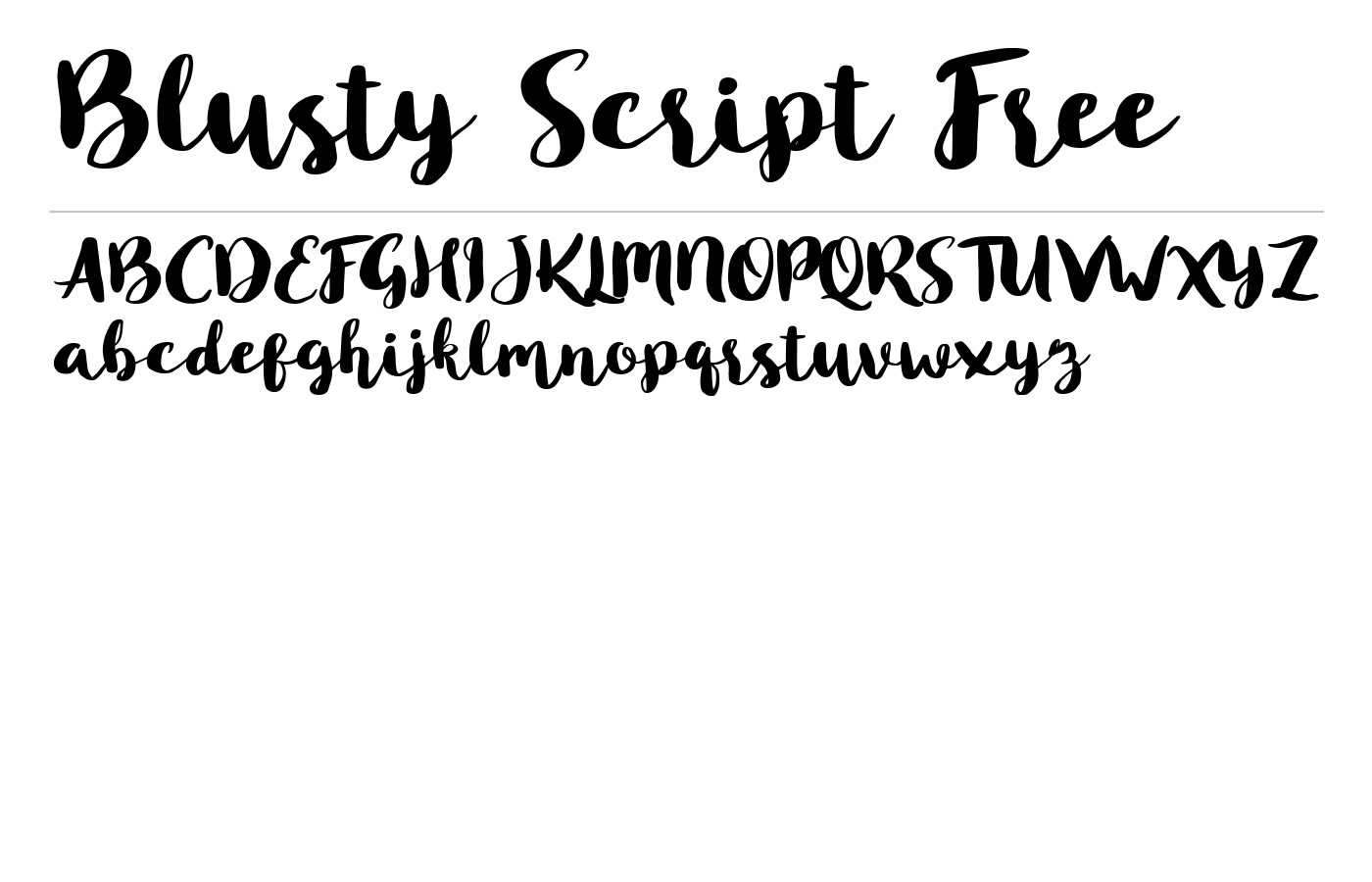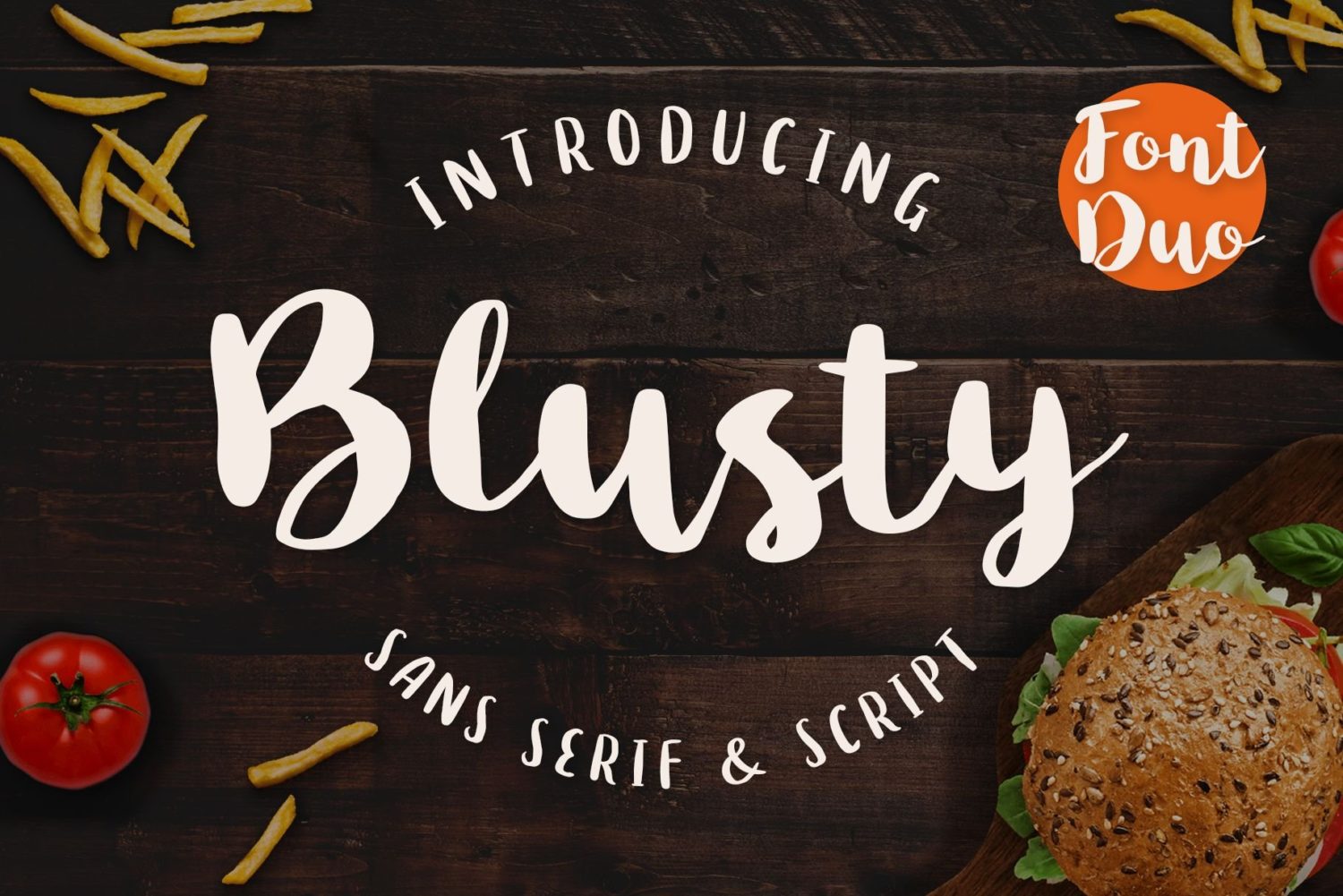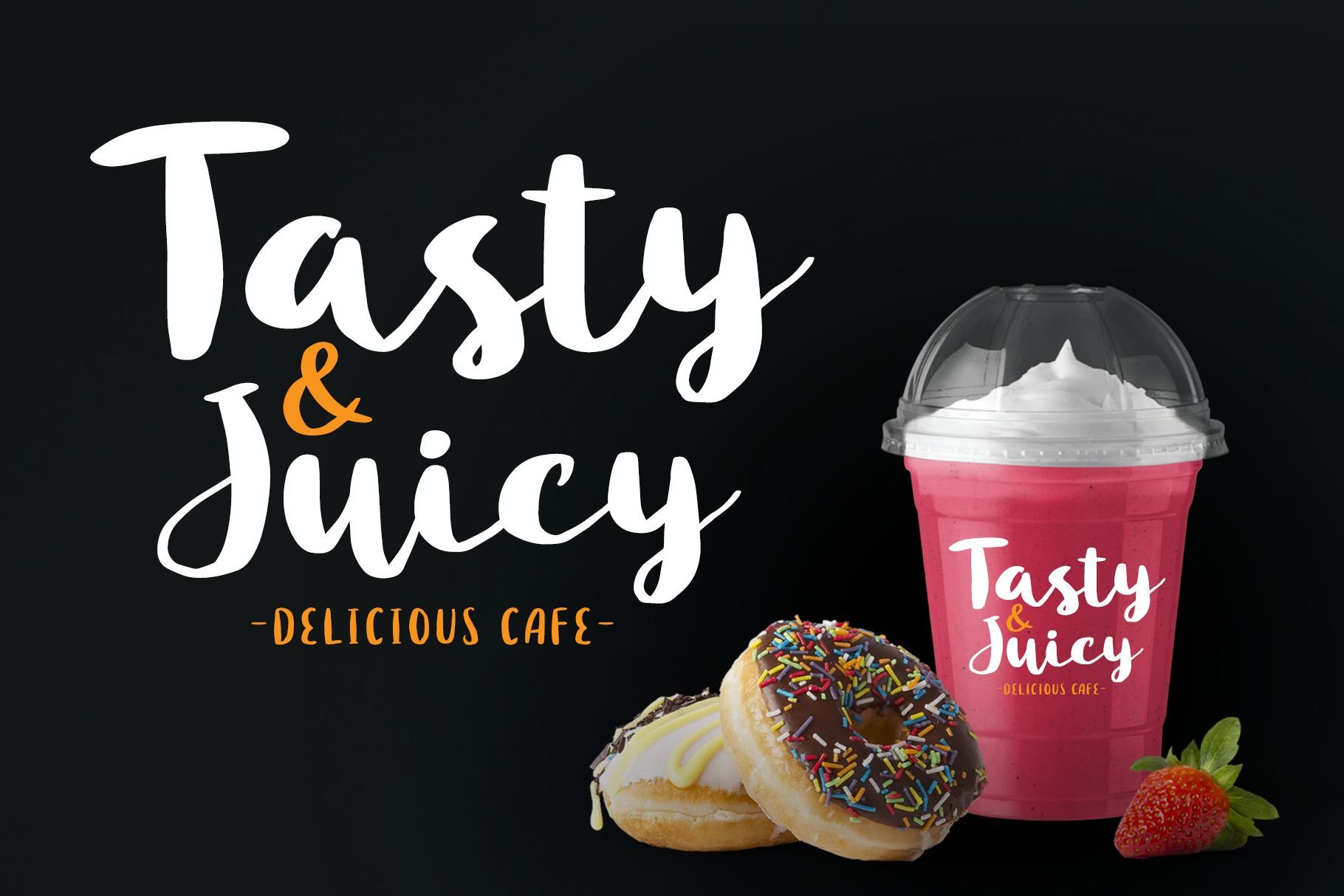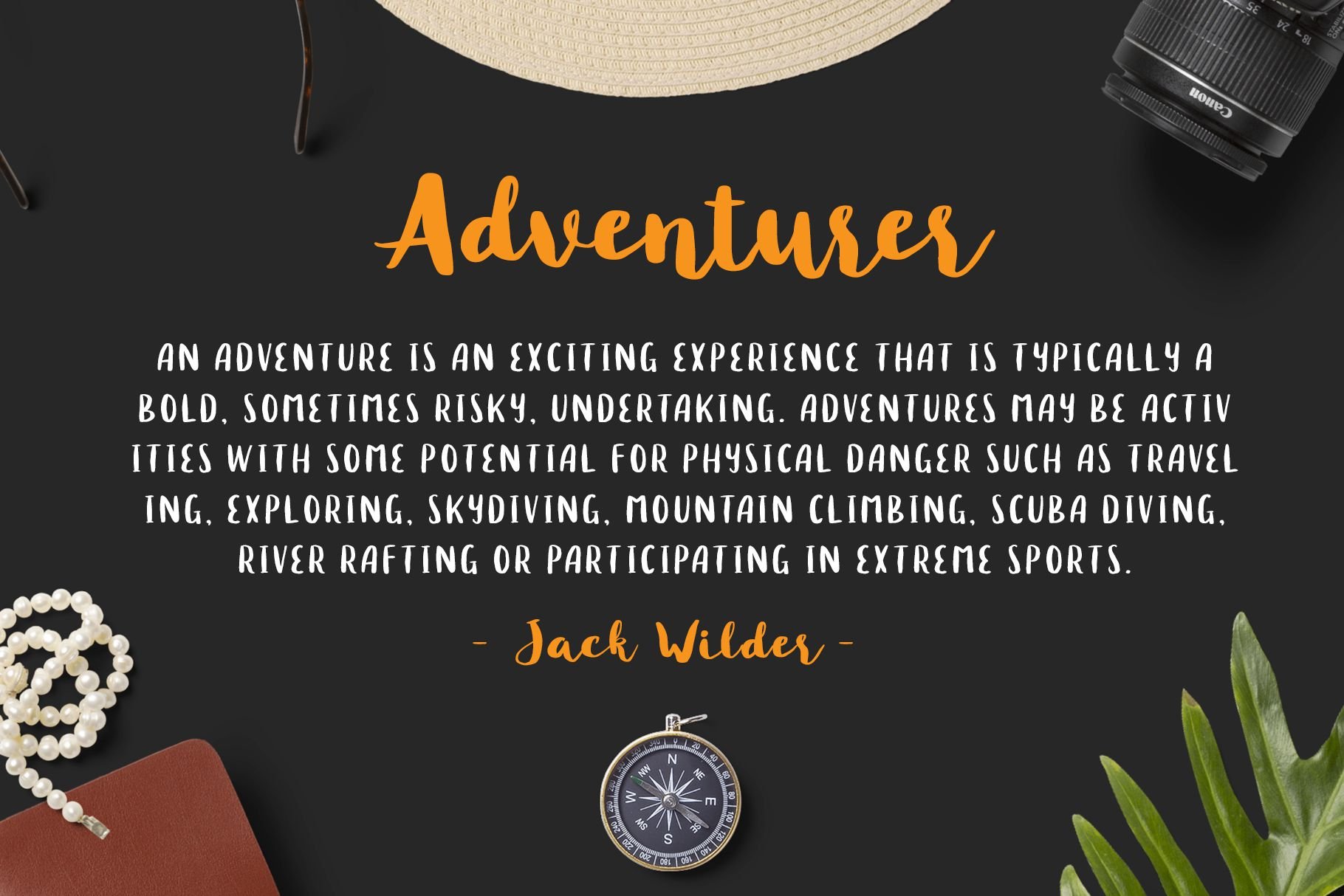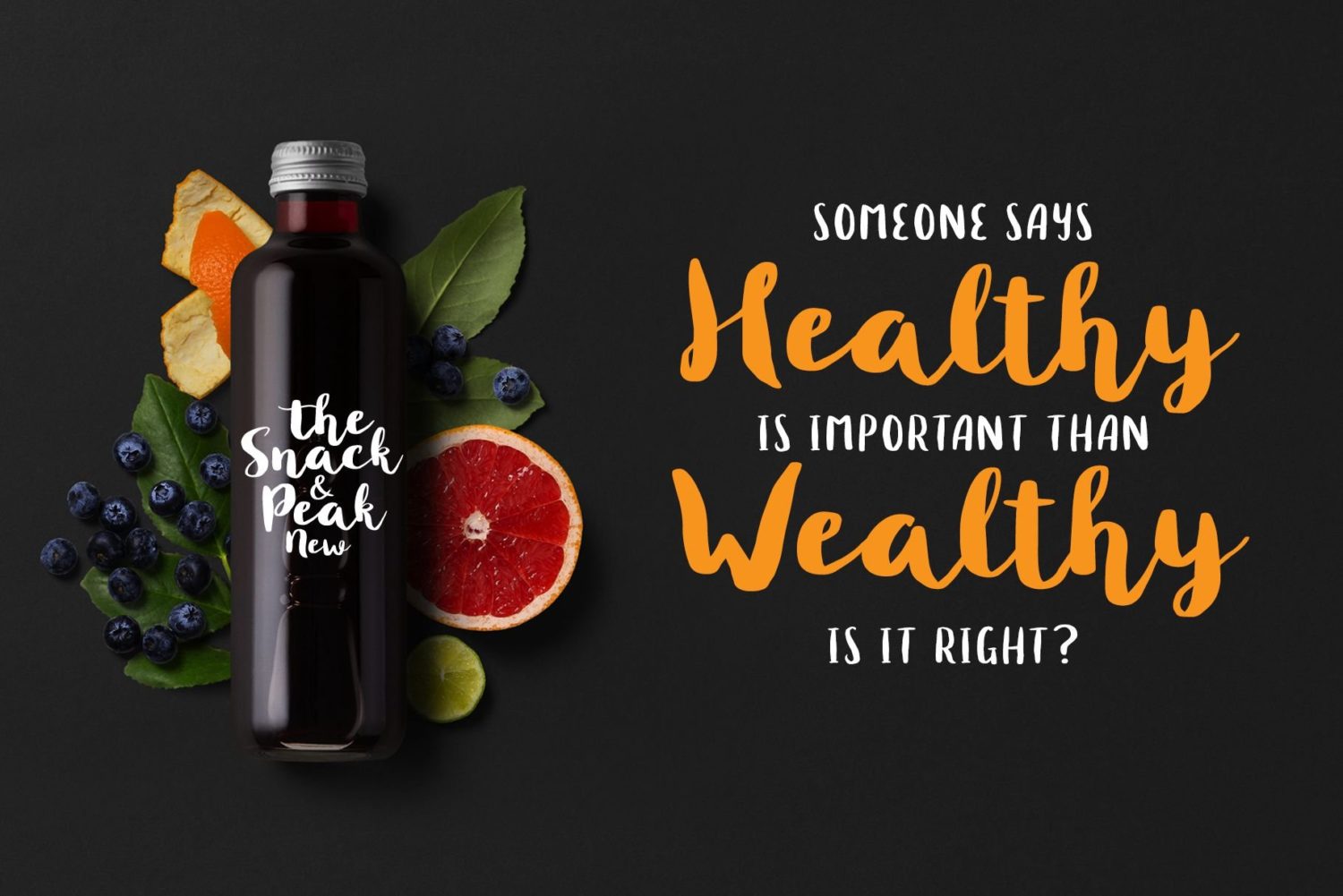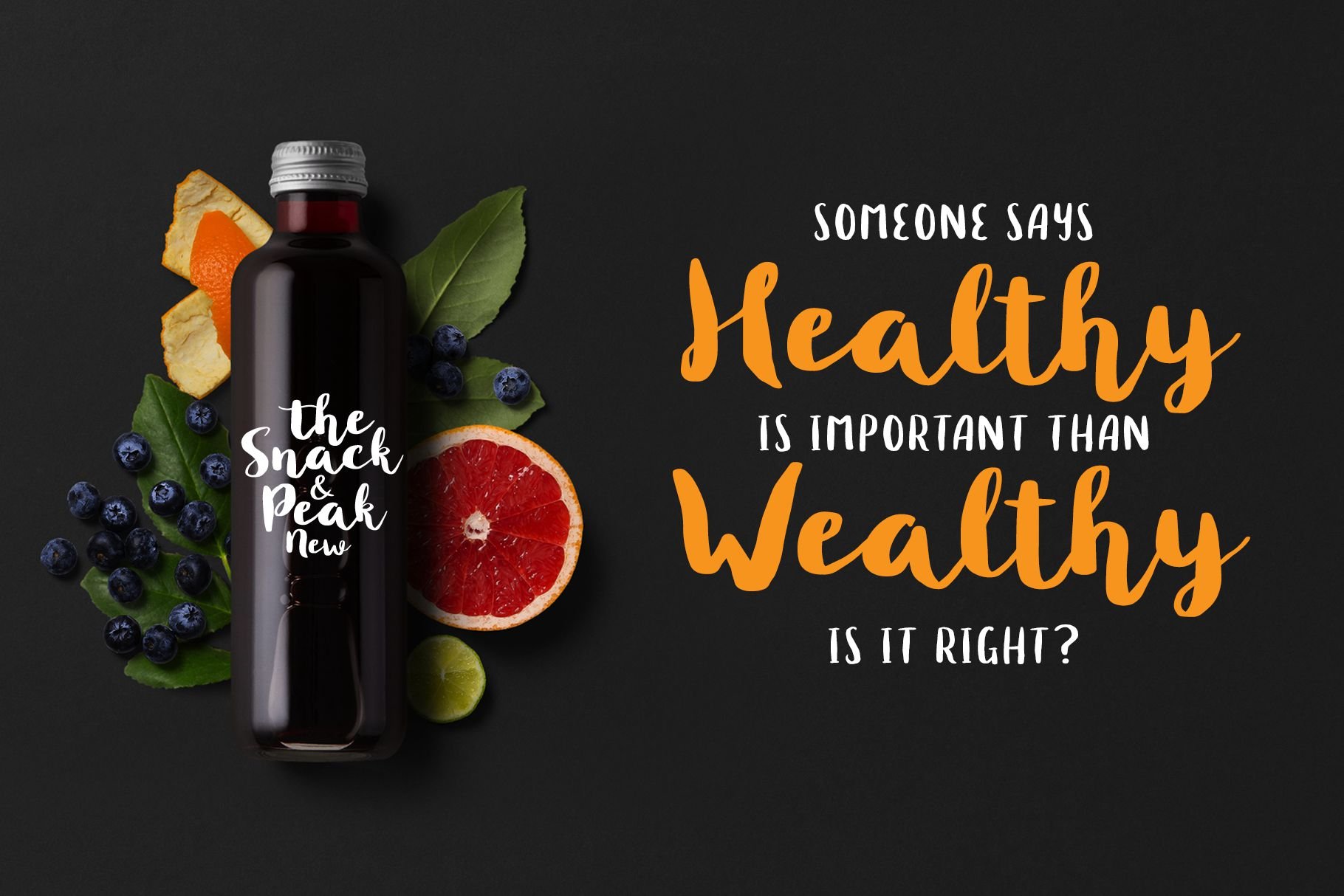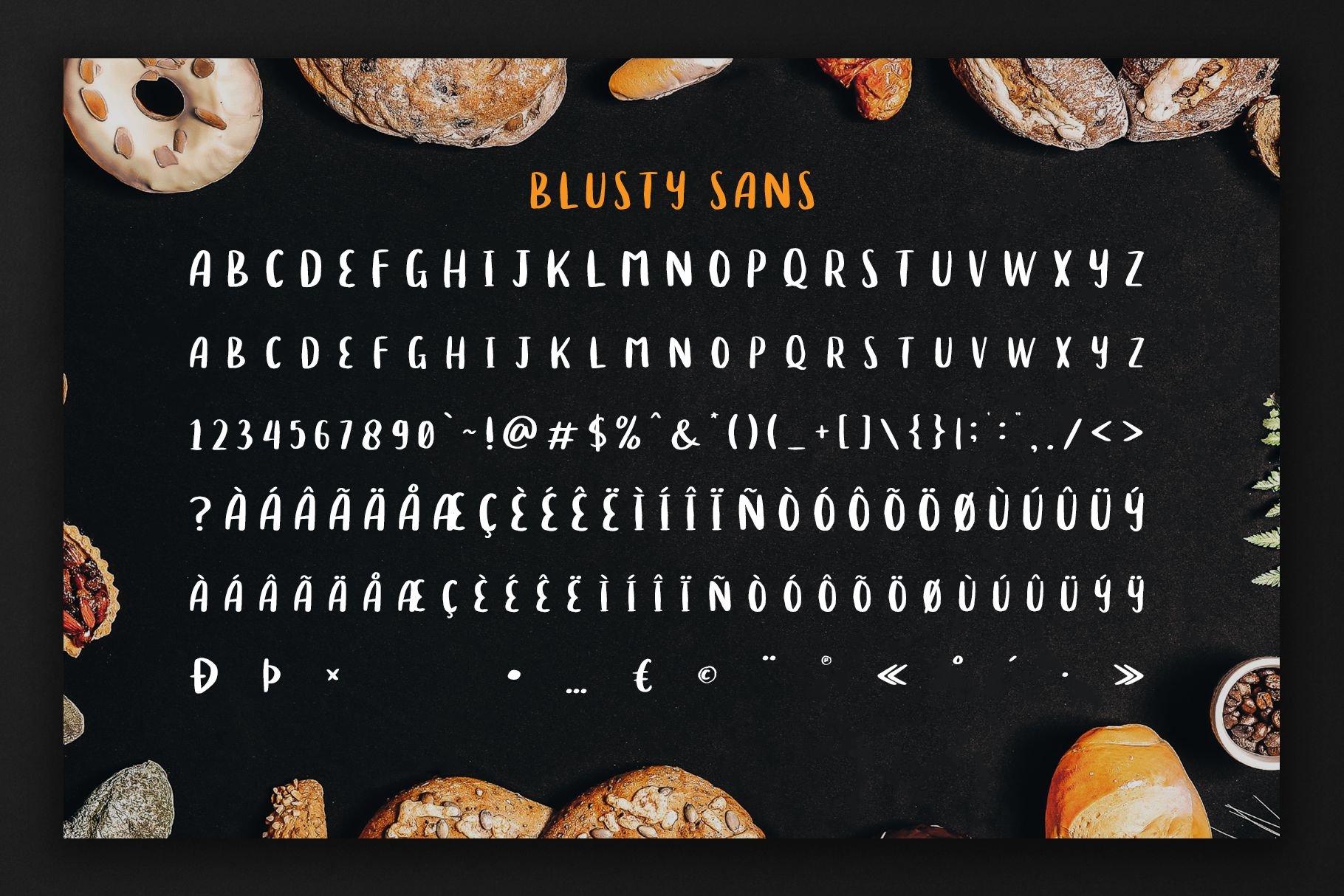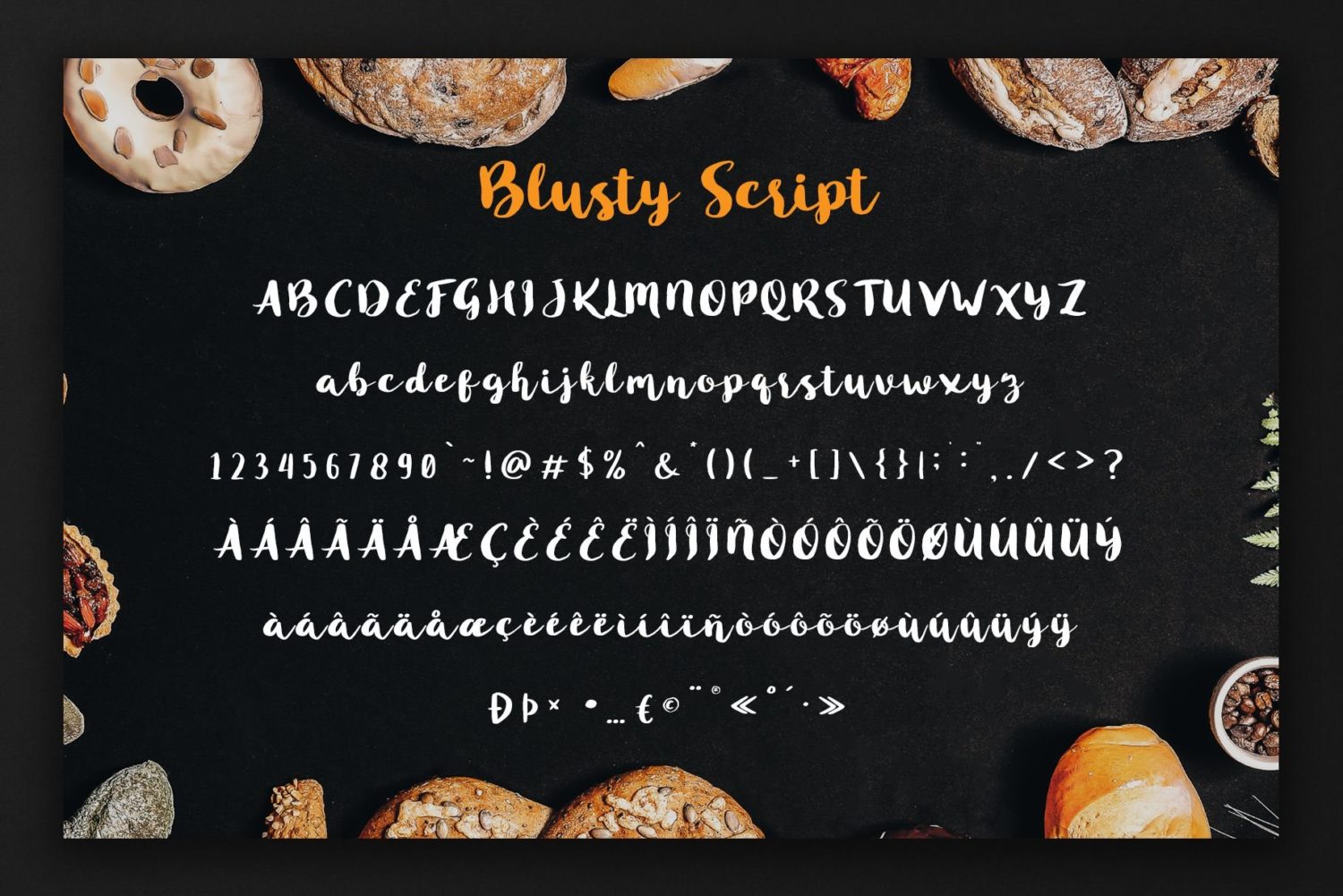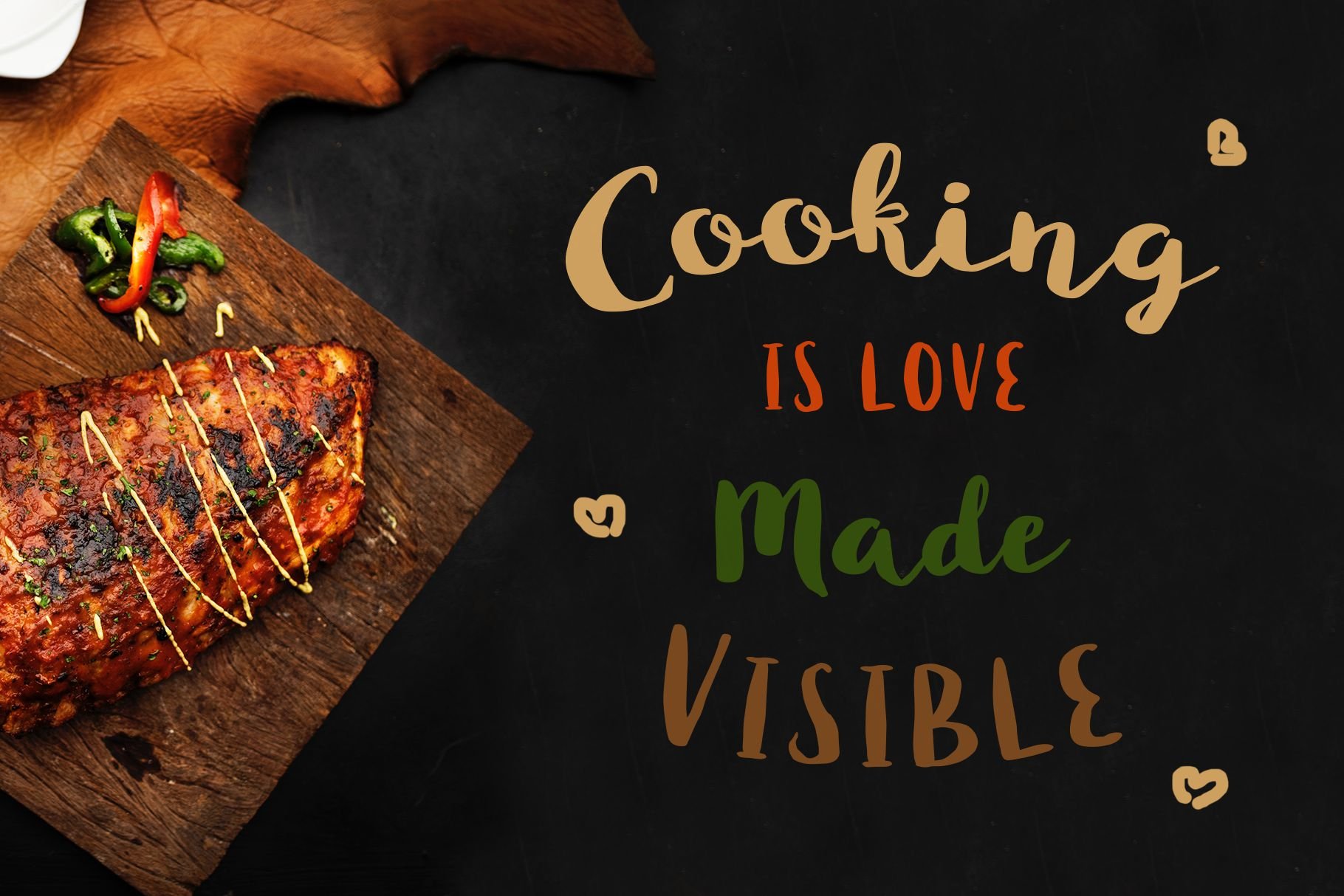
Blusty Script is a lively, hand-drawn script font with bold, brush-style strokes that give it a playful and energetic feel. Its smooth curves and fluid connections make it ideal for creative projects, branding, and headlines where a friendly, informal tone is desired. This font works well for invitations, packaging, and lifestyle brands seeking a warm, approachable personality.
Blusty Script Font
About Blusty Script Font